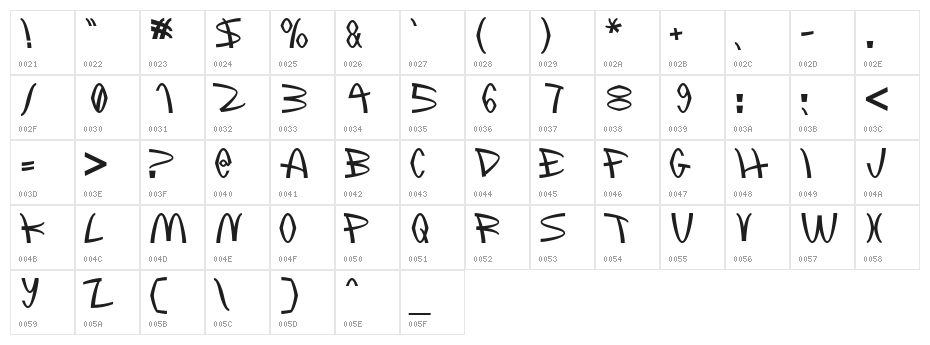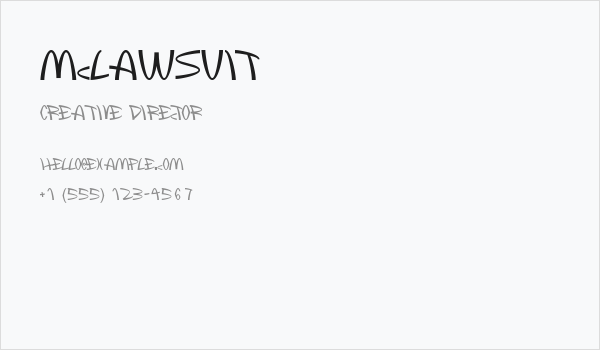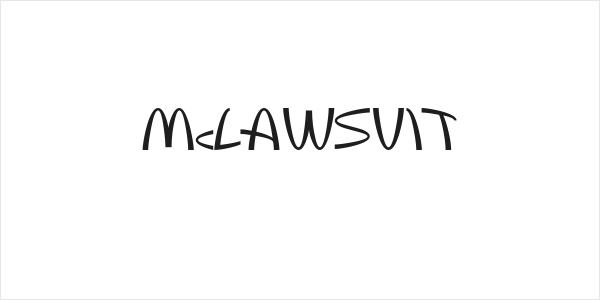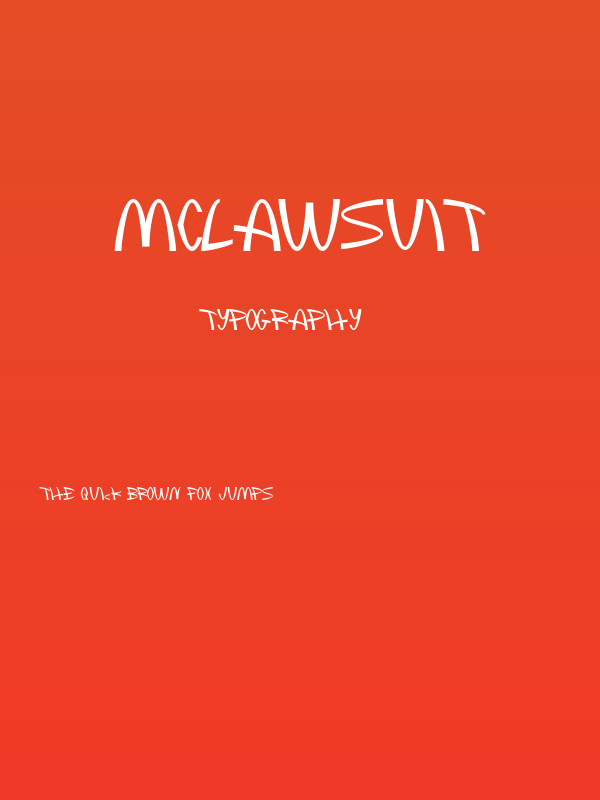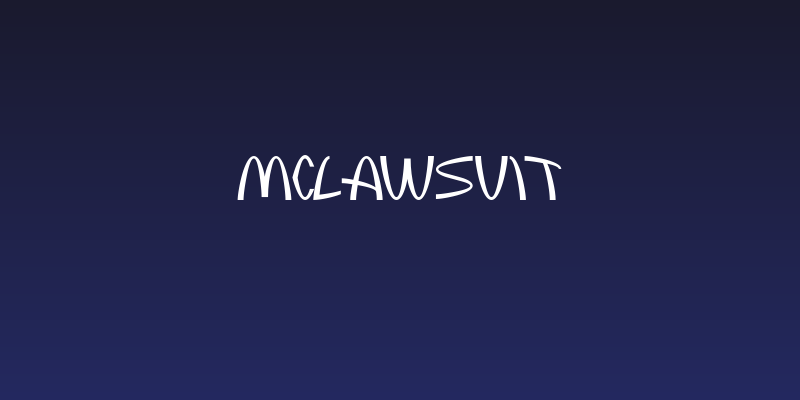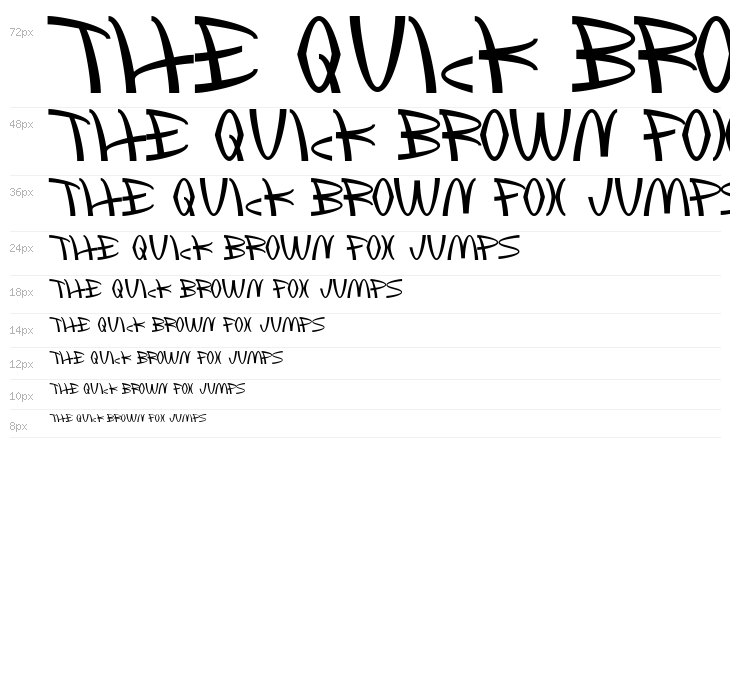
McLawsuit Font
McLawsuit Description
This font features a playful and energetic style, characterized by its bold, hand-drawn appearance. The letters have a graffiti-like quality with exaggerated curves and angles, giving it a dynamic and informal feel. The uppercase and lowercase letters maintain a consistent style, with a slightly irregular baseline that adds to the casual aesthetic. The numbers and special characters follow the same design principles, ensuring a cohesive look across all glyphs. This font is ideal for projects that require a fun and youthful vibe, making it suitable for creative and artistic applications.
| Proposed Projects | Ideal for street art designs, youth-oriented branding, event posters, and creative digital content. |